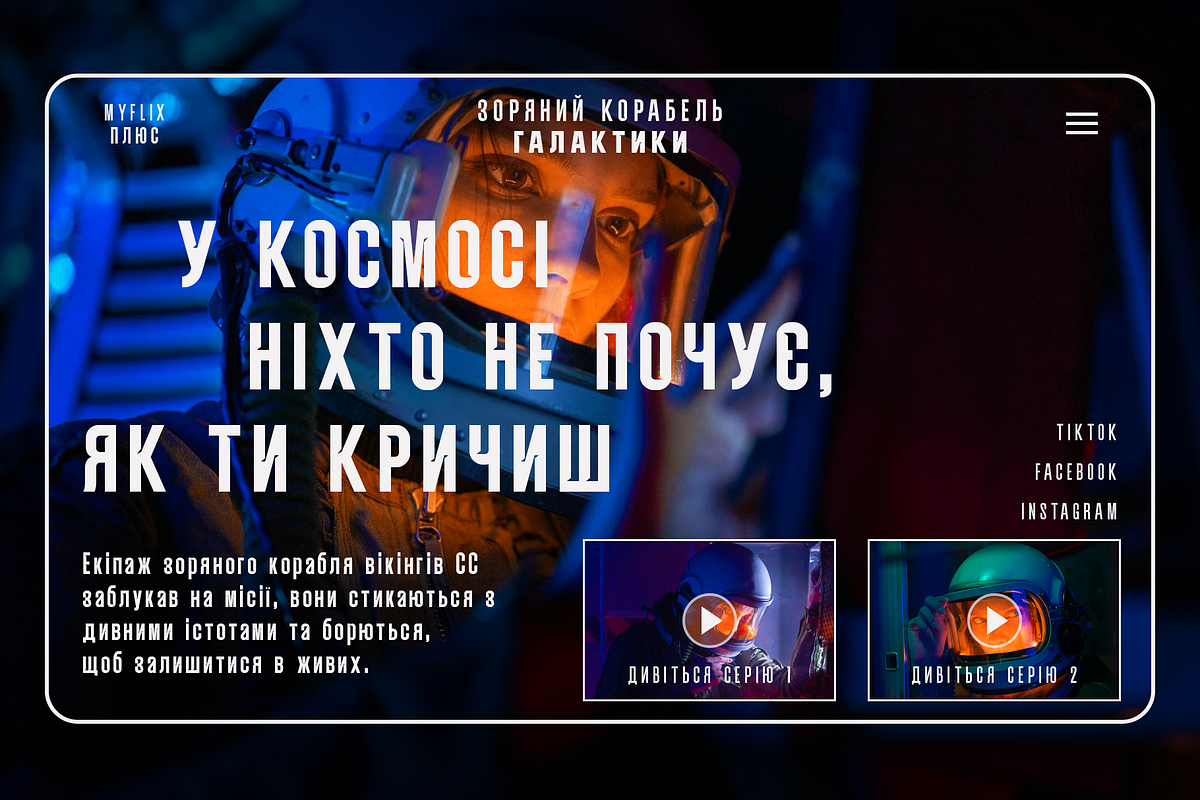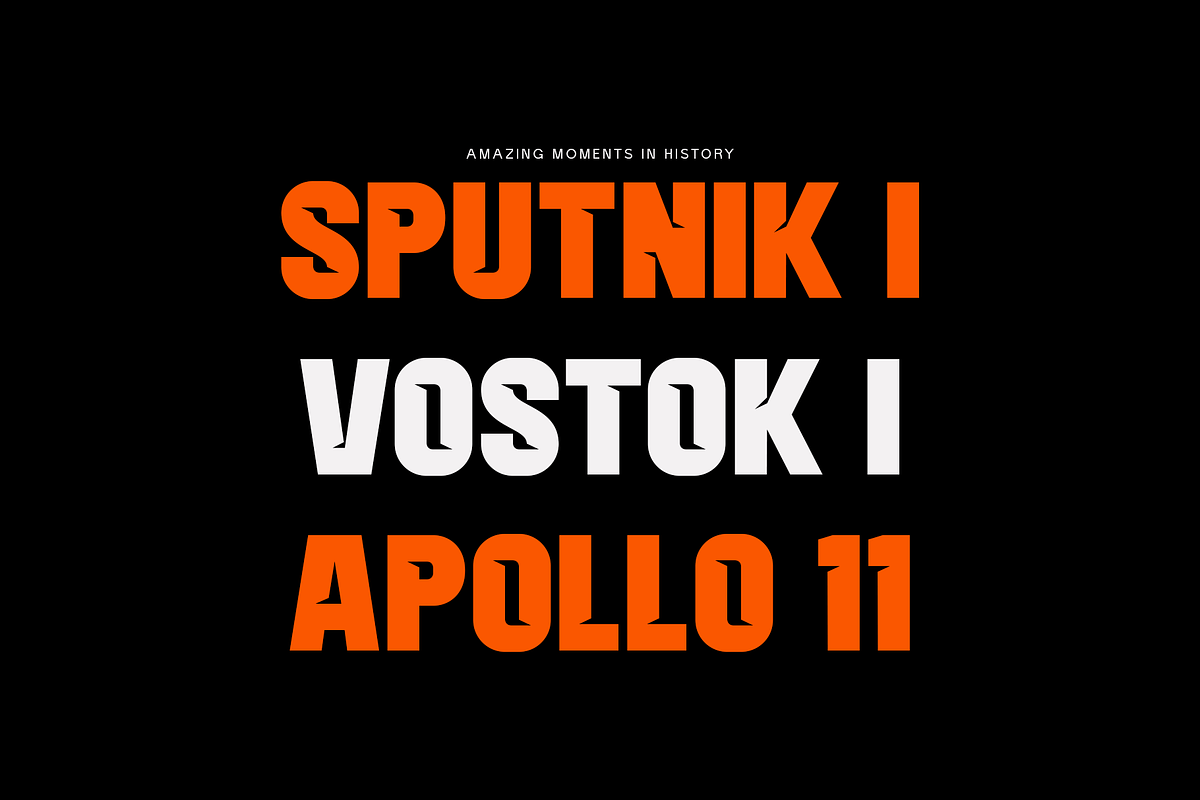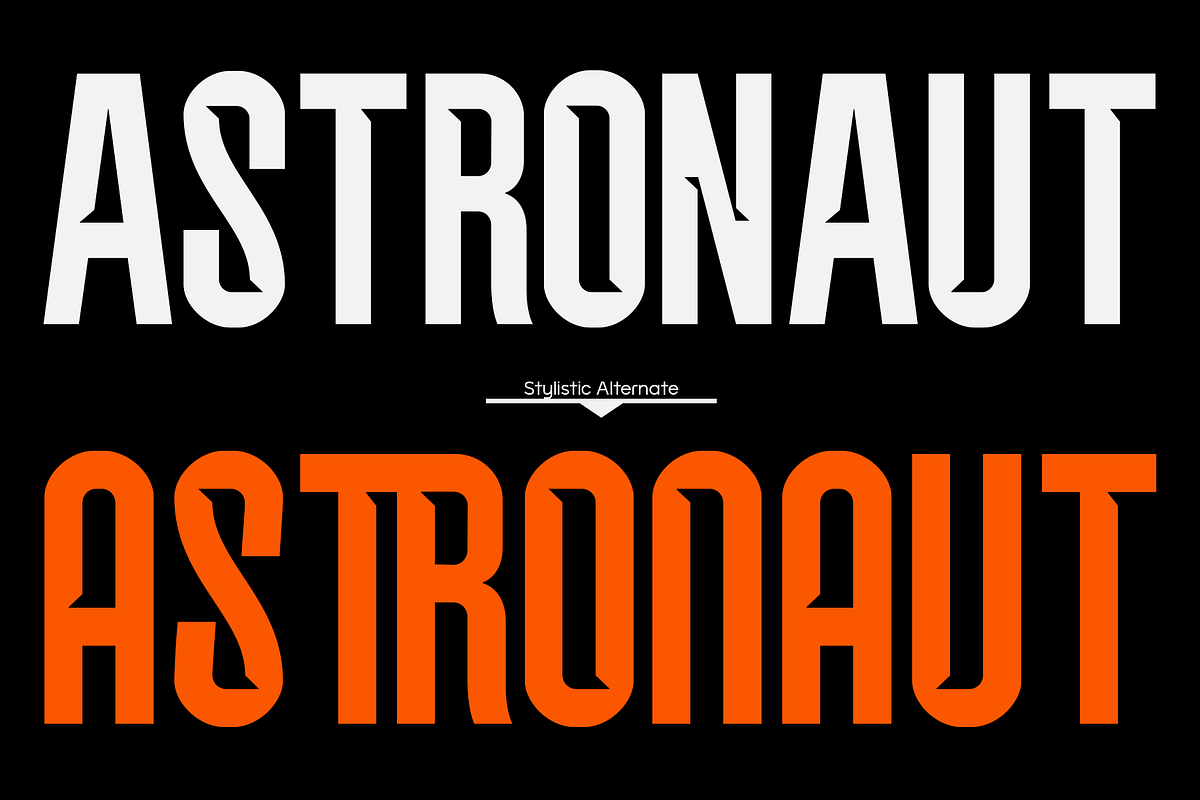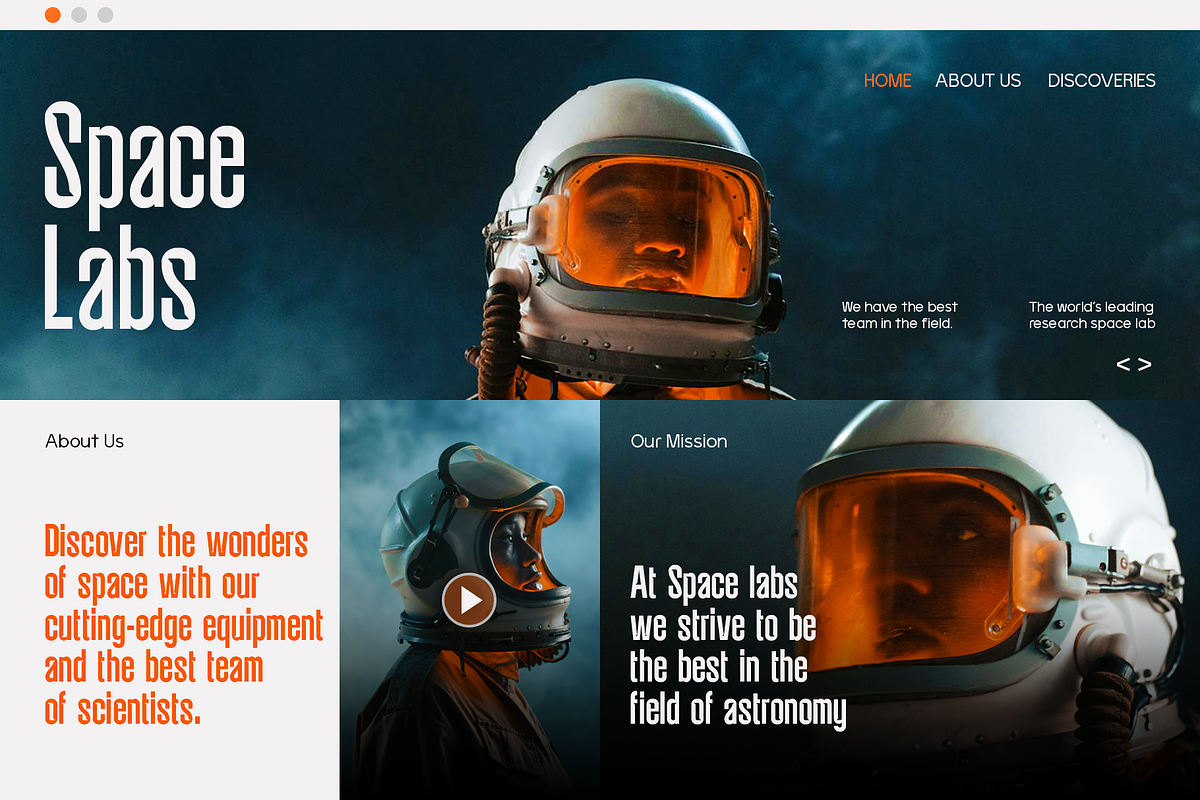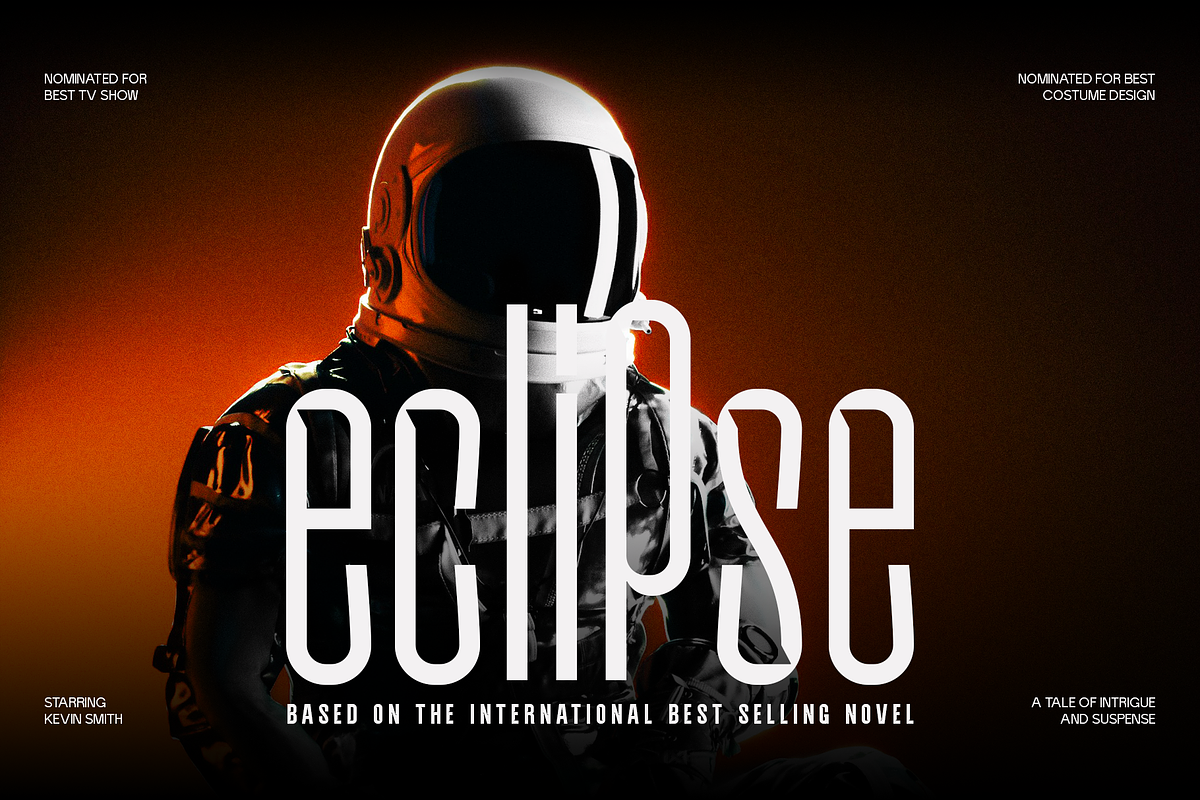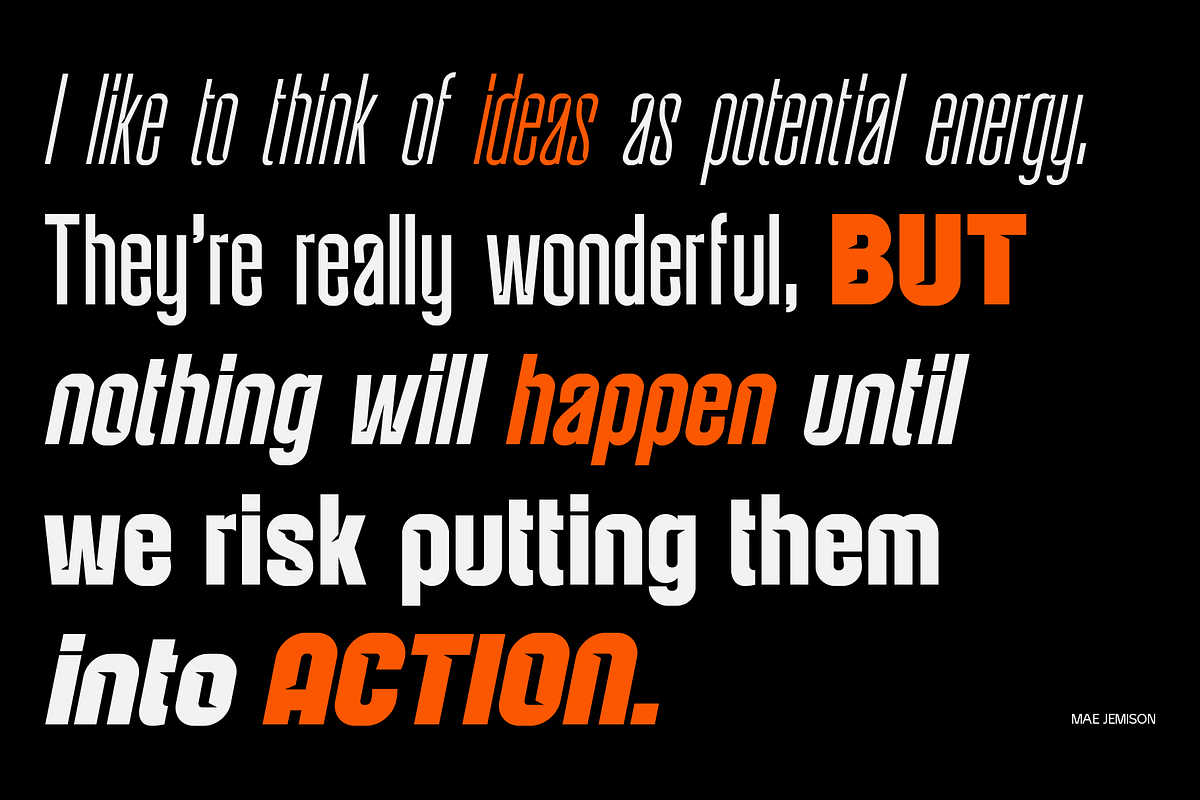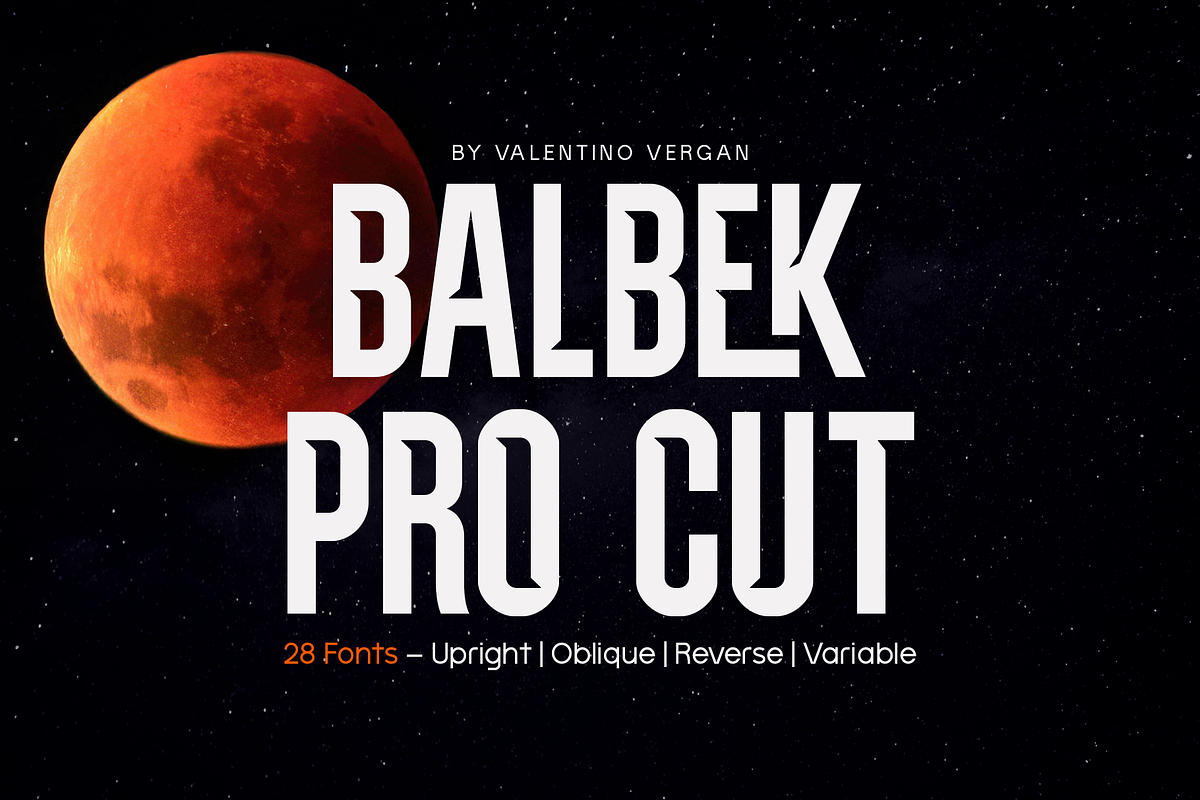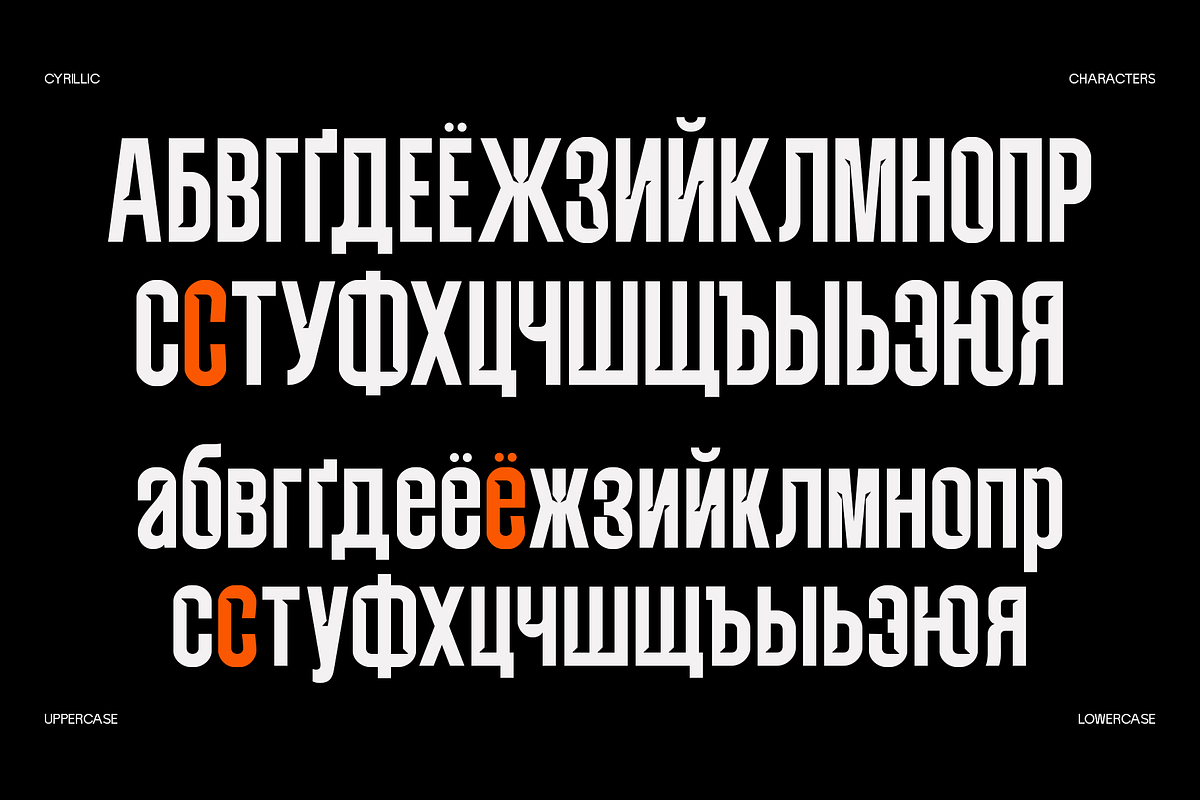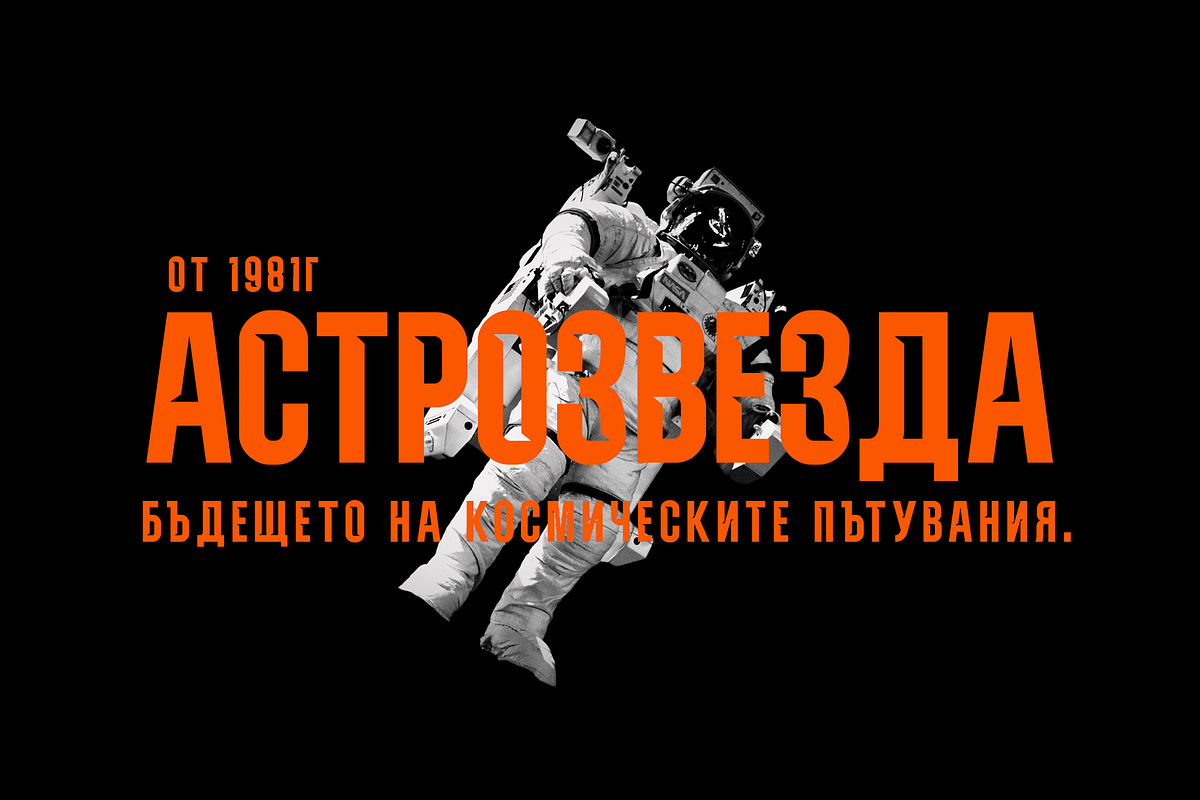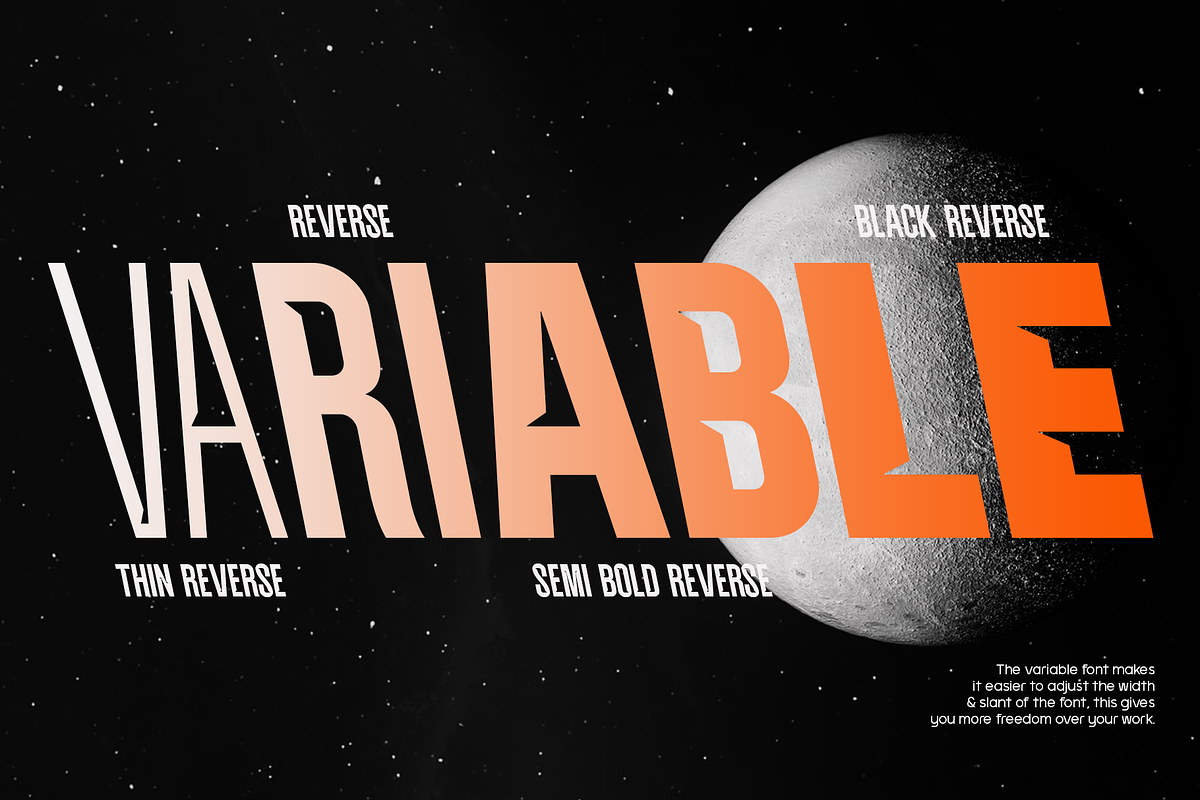
Balbek Pro Cut - Modern Sans Serif
Introducing Balbek Pro Cut, a modern sans serif typeface designed to make a powerful visual impact. With its razor-sharp cuts, architectural forms, and contemporary elegance, Balbek Pro Cut is perfect for branding, editorial design, web, packaging, and high-impact headlines.
This font seamlessly blends minimalist aesthetics with a bold character, making it an essential tool for creatives seeking a clean yet unique typographic voice. Whether you’re crafting a luxury brand identity or designing sleek digital interfaces, Balbek Pro Cut delivers professionalism with edge.
BALBEK PRO CUT INCLUDES A FULL SET OF:
- Uppercase and lowercase letters.
- Numbers.
- Punctuation.
- Ligatures.
- Multilingual Symbols.
Elevate your next project with a font that speaks confidence, clarity, and modern sophistication. Make your mark with Balbek Pro Cut.